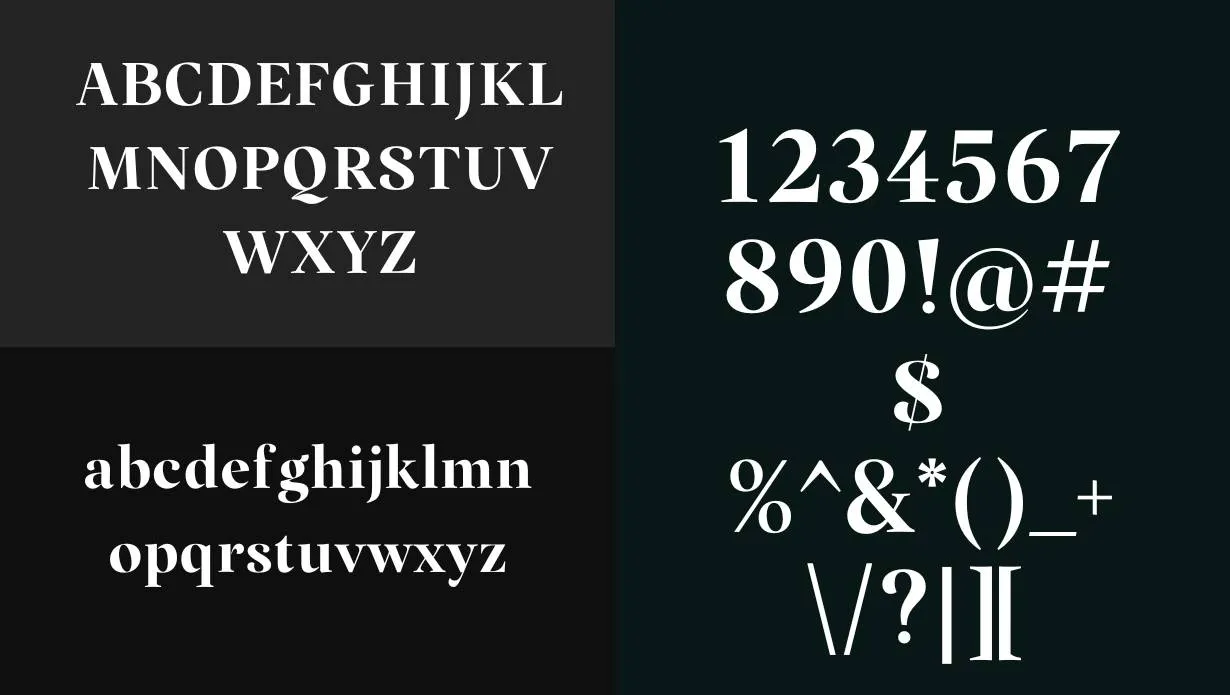
Margaret Font is a charming and decorative serif typeface that brings creativity to your designs. This font is designed by Kacper Janusiak. It’s an excellent choice for projects that call for a whimsical and artistic flair, such as craft labels or event posters.
Margaret Font Family
| Name | Margaret Font |
| Designer | Kacper Janusiak |
The font offers a variety of characters, including uppercase and lowercase letters, numerals, punctuation, and special characters. Whether you’re designing in Canva or Adobe, Margaret Font adds a touch of artistry and playfulness to your creations, making them more vibrant and engaging.